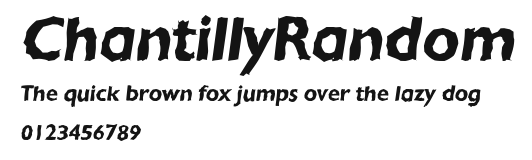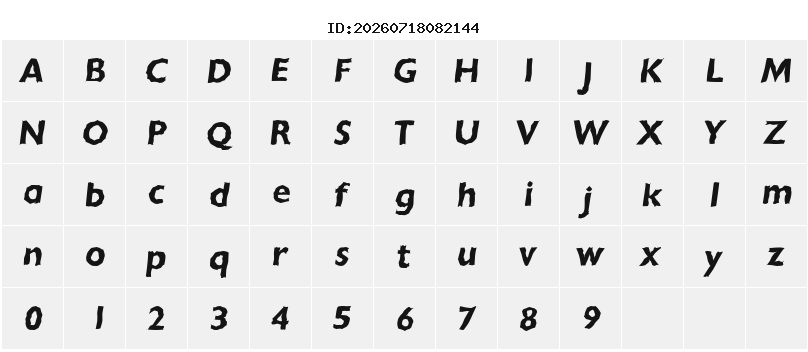
• Font Name: ChantillyRandom
• Designer: SoftMaker Software GmbH
ChantillyRandom.ttf is a modern, elegant sans-serif font designed for ultimate readability and visual harmony. Perfect for branding, headlines, web design, and print materials.